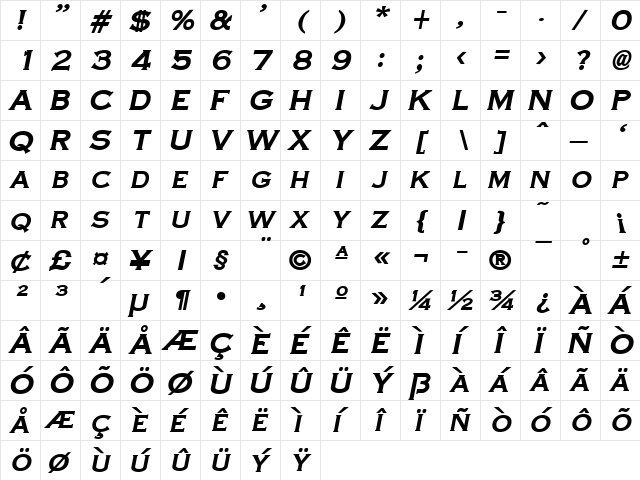
CopperPlateCondensed Bold-Italic Font Preview
Design Context for CopperPlateCondensed Typeface
CopperPlateCondensed takes a measured approach to typography — its balanced proportions and neutral character make it a reliable workhorse for both digital and print work. Its italic angle brings a sense of urgency and motion to the letterforms. The heavy weight commands attention and anchors typographic hierarchies. The condensed width makes it efficient for tight spaces without sacrificing legibility.